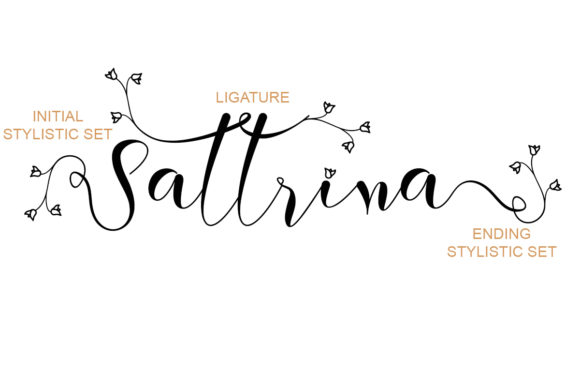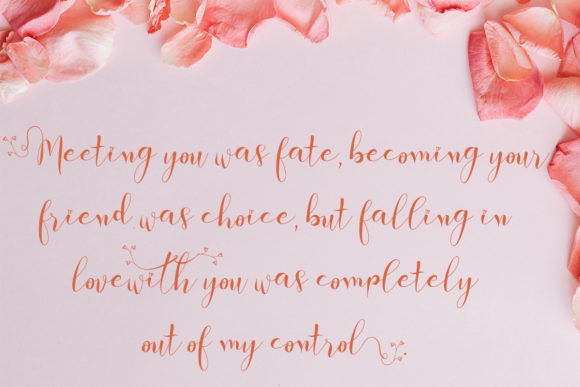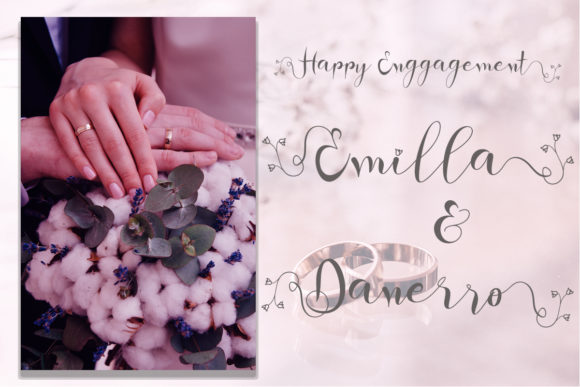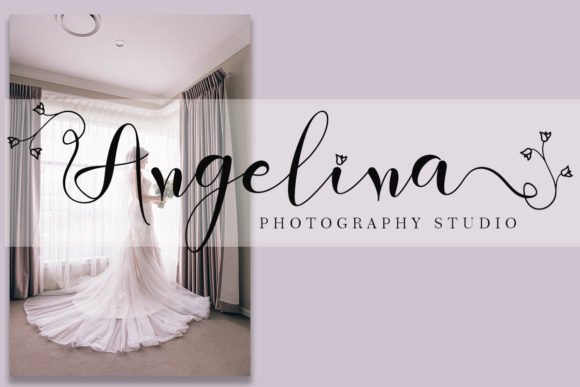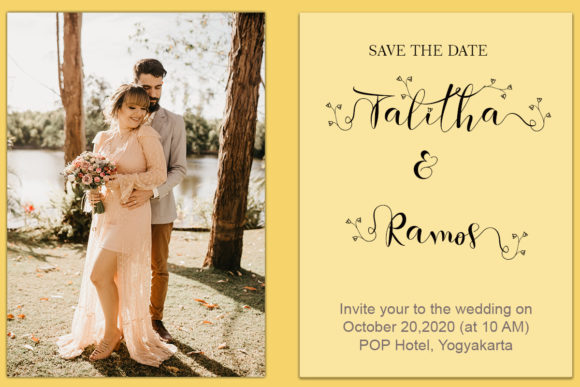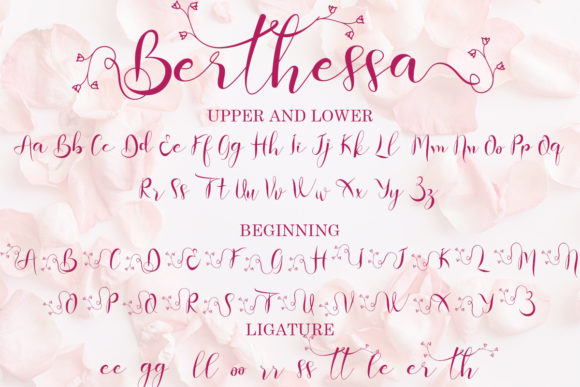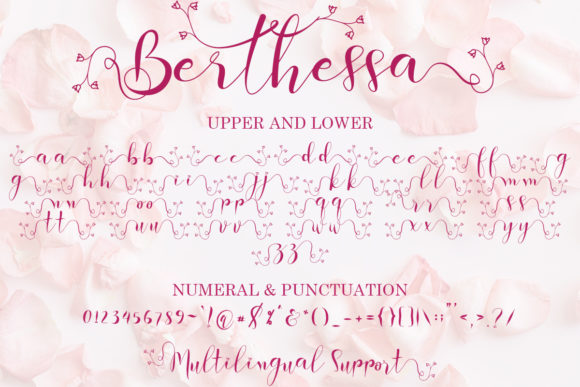
About Berthessa Font
Berthessa is am elegant and romantic handwritten script font. It looks stunning on wedding invitations, thank you cards, quotes, greeting cards, logos, business cards and every other design which needs a handwritten touch.